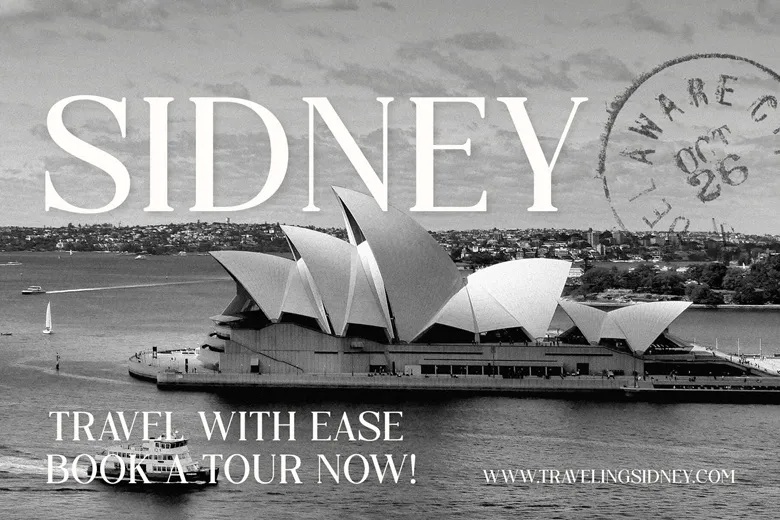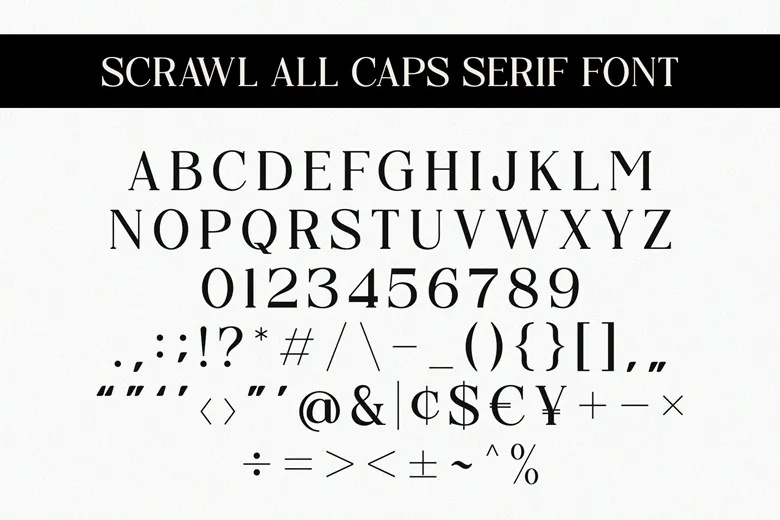
Despite its name, Scrawl is not messy at all. It is a tidy, all caps serif with strong thick and thin contrast and fine, sharp serifs. The specimen credits Almeera Studio. The Sidney travel poster, with the opera house below a big white headline, is a good example of how it works.
The font has about 110 glyphs, covering capitals, numbers and punctuation. It looks best with a little extra letter spacing, which makes a single word feel open and confident.
Best uses for Scrawl
- Travel and tourism posters
- Photography watermarks and logos
- Wedding stationery
- Product labels
- Book titles
Scrawl has no lowercase, so you need a text partner. Lato is easy to read. Cormorant Garamond matches its classic mood. For a modern contrast, try Jost.
Scrawl Serif Font